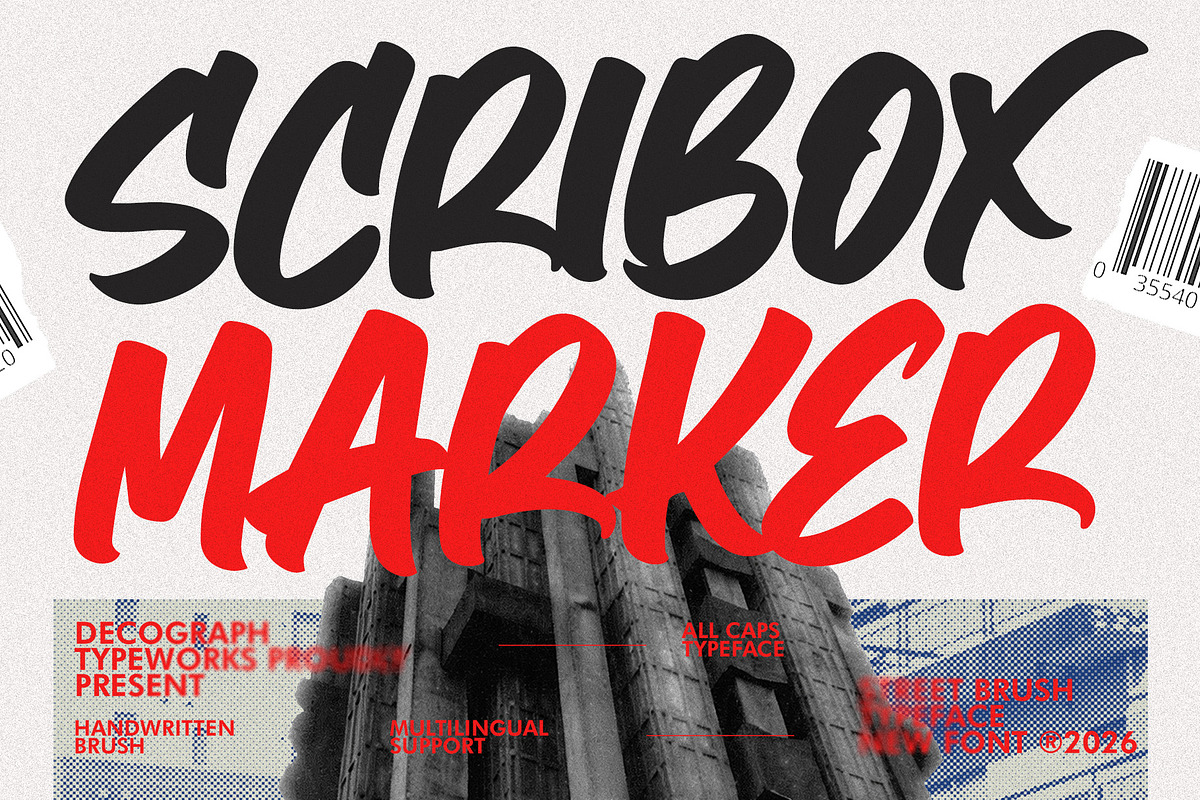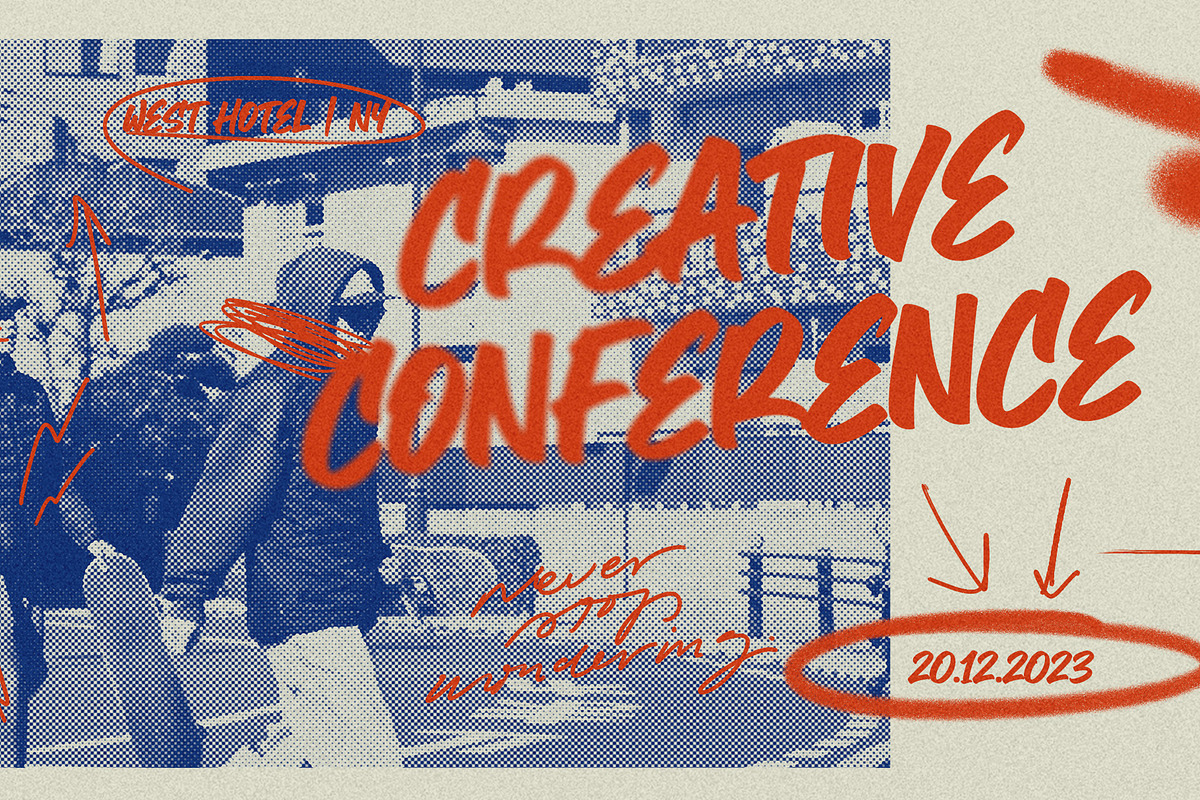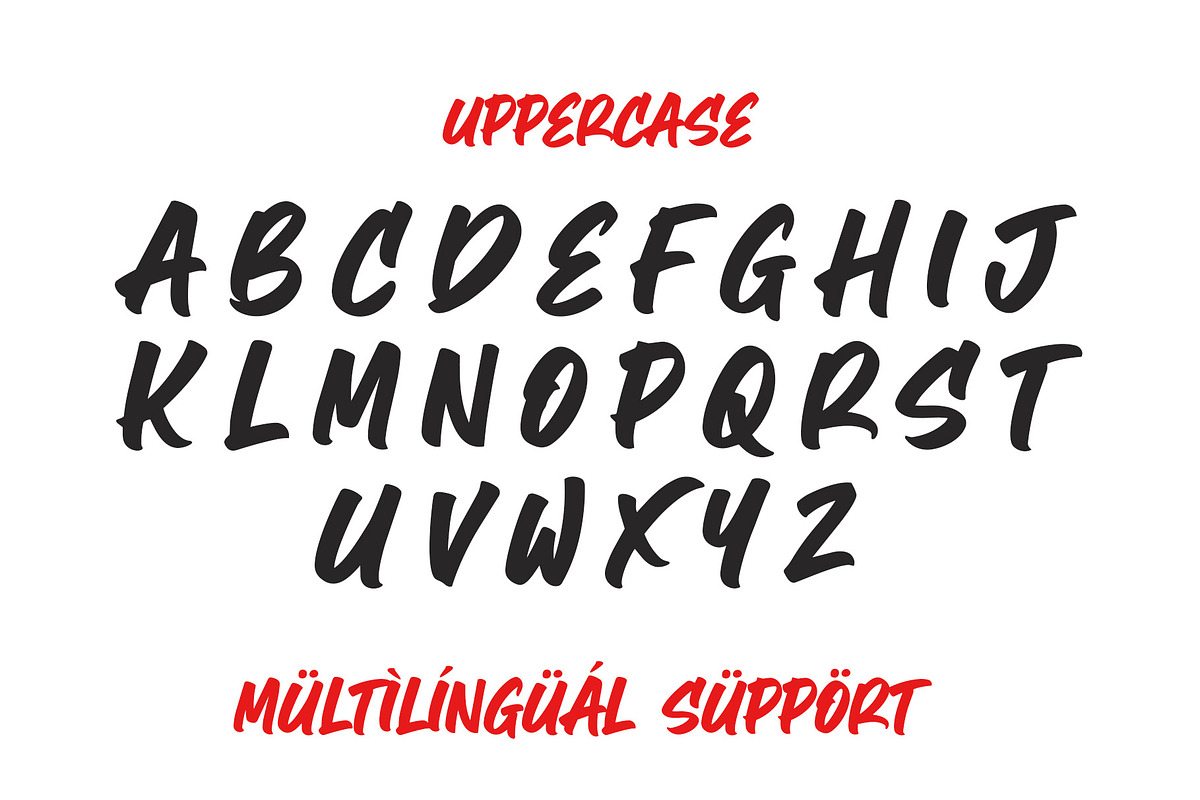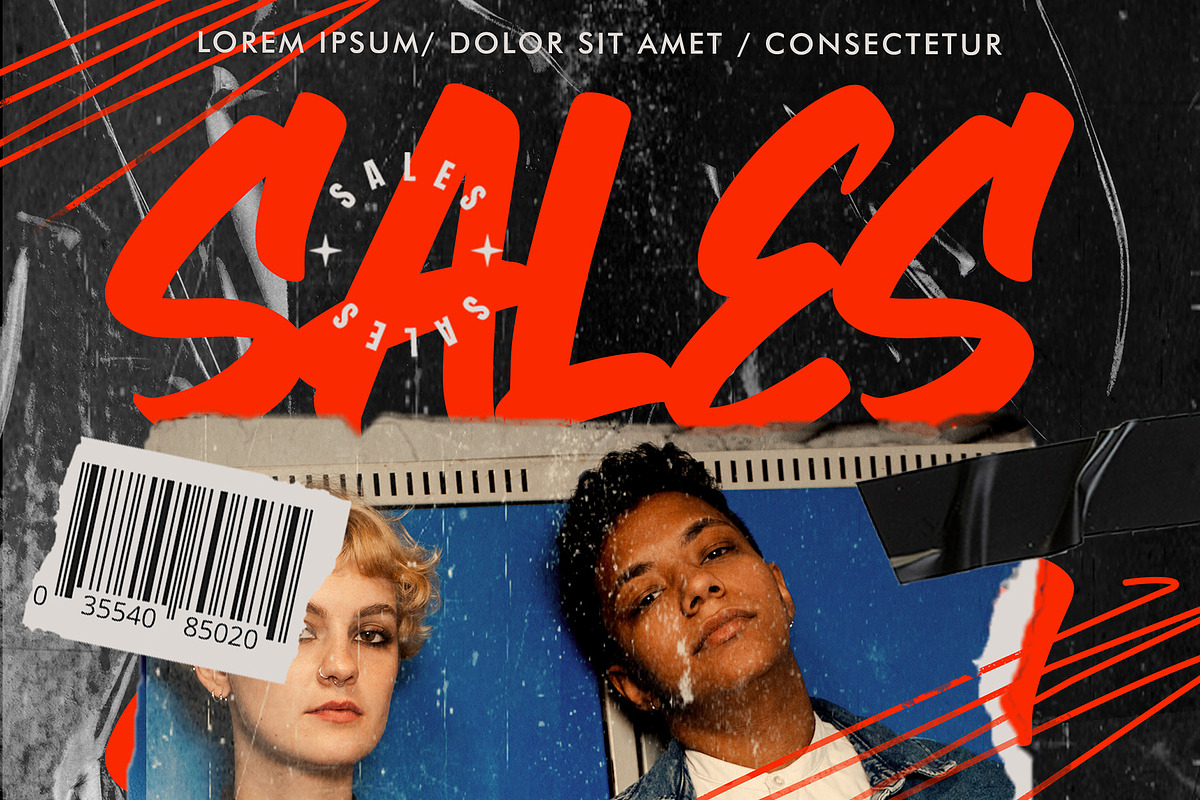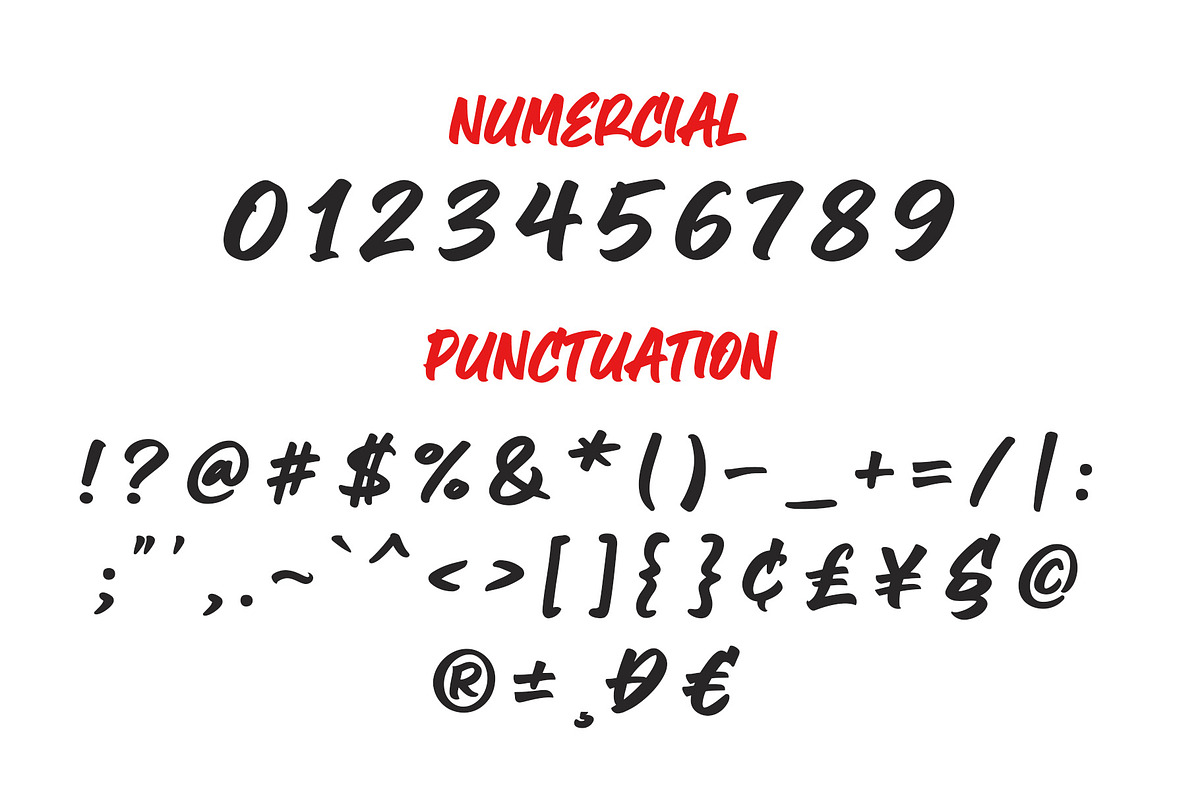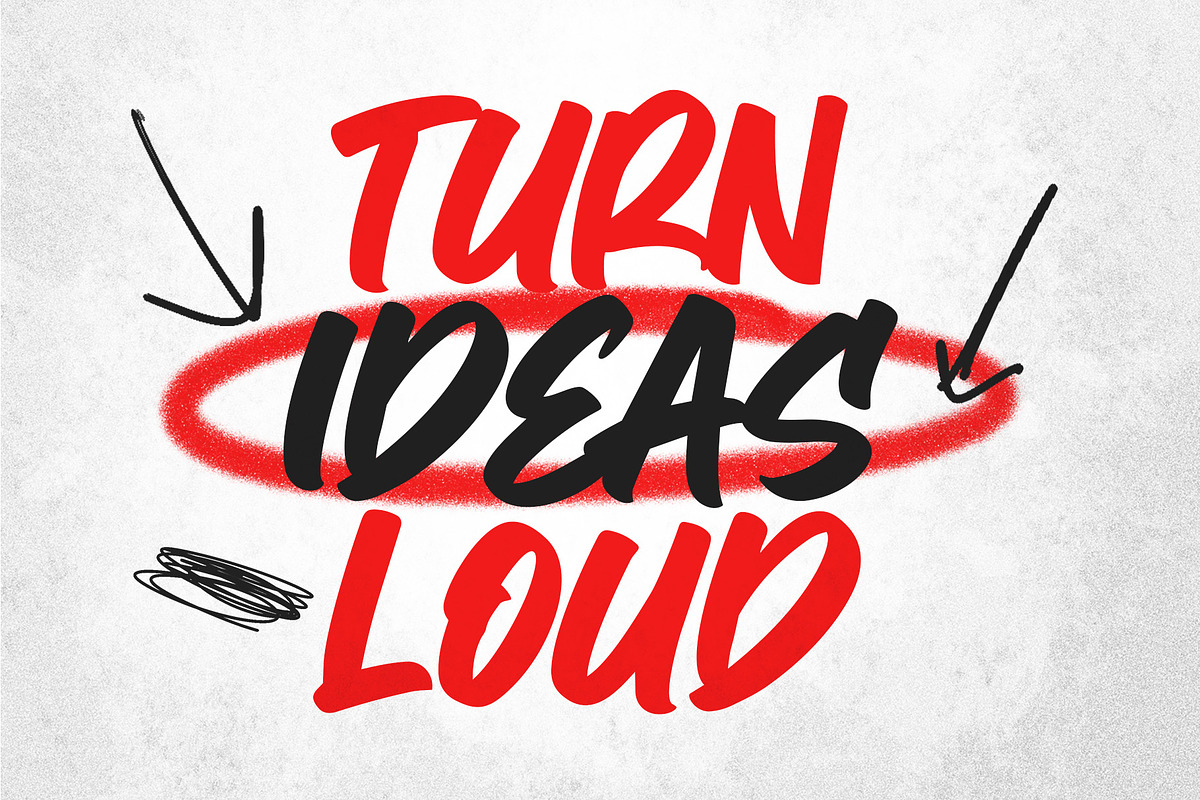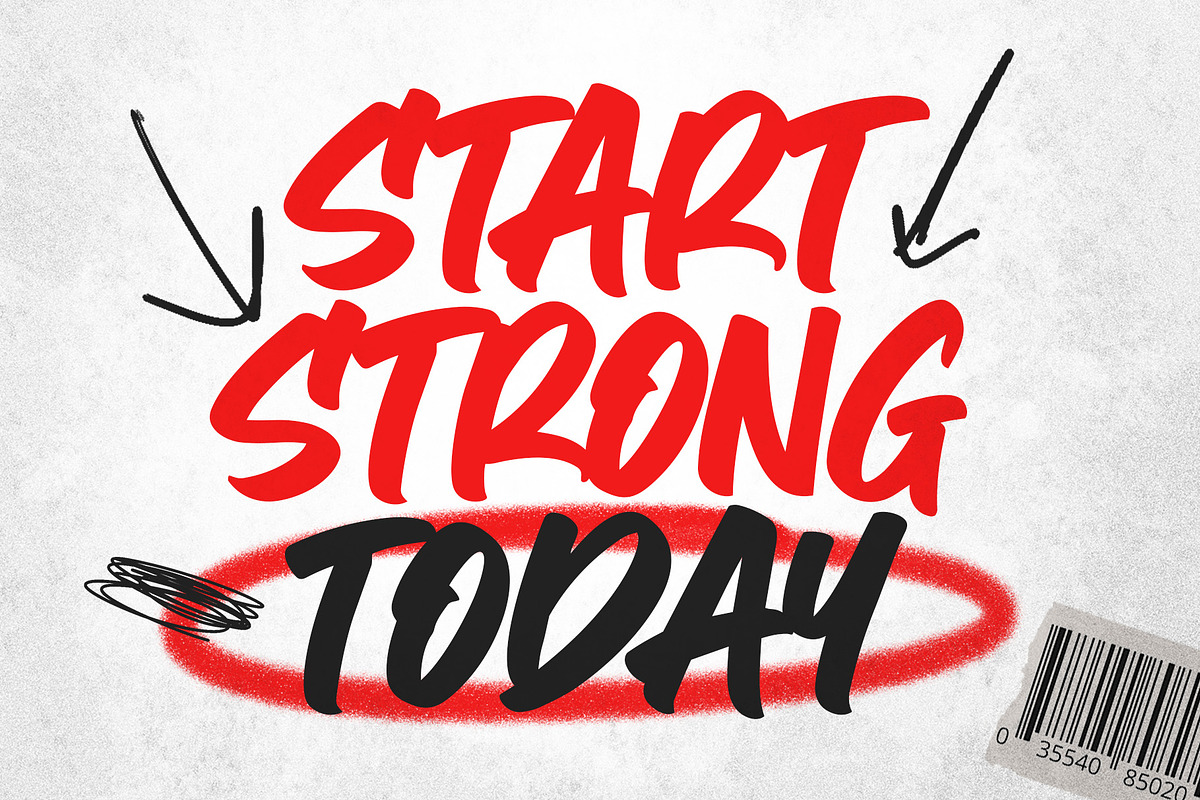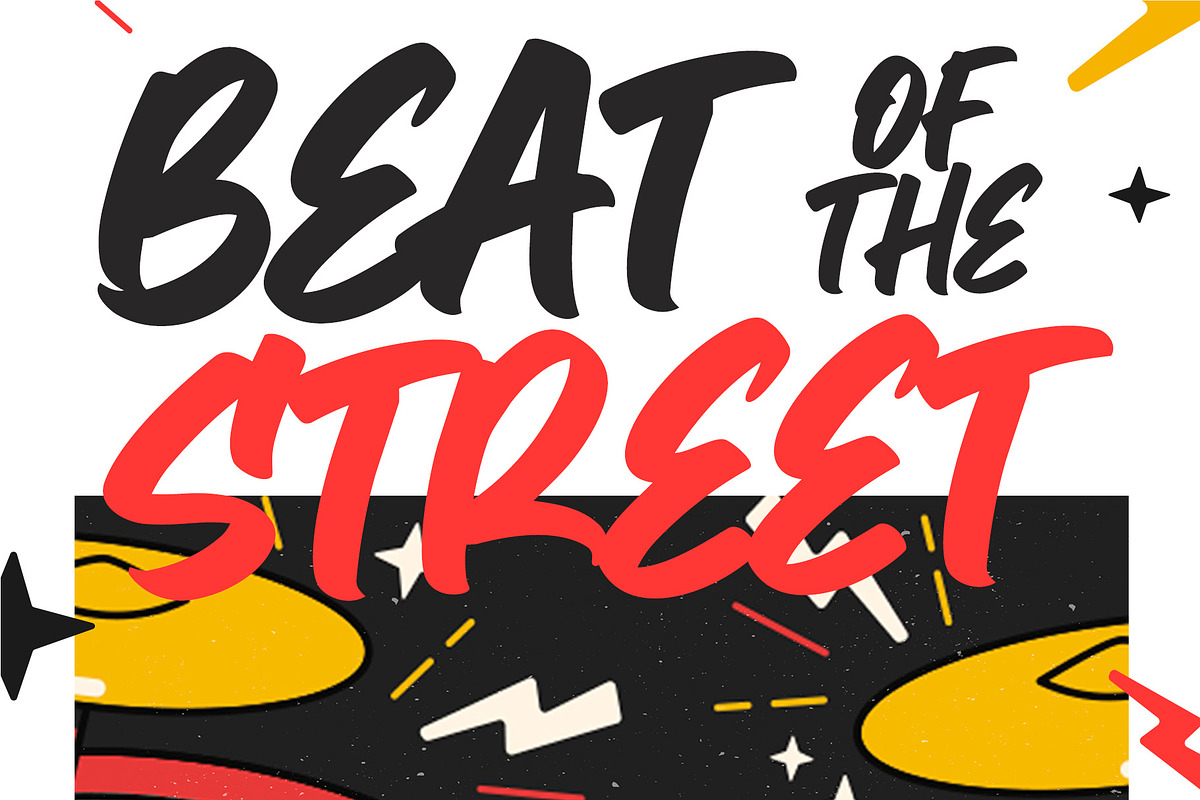
Scribox Marker – Bold Street Brush
Scribox Marker is a raw, high-energy brush typeface that captures the authentic spirit of hand-drawn street lettering. With its bold strokes, expressive curves, and slightly rough edges, this font delivers a powerful urban attitude that feels spontaneous and unapologetically alive. Every letter is crafted to mimic real marker movement—fast, confident, and full of personality—making it perfect for designs that need impact and edge.
- All Caps Typeface
- Smooth Kerning